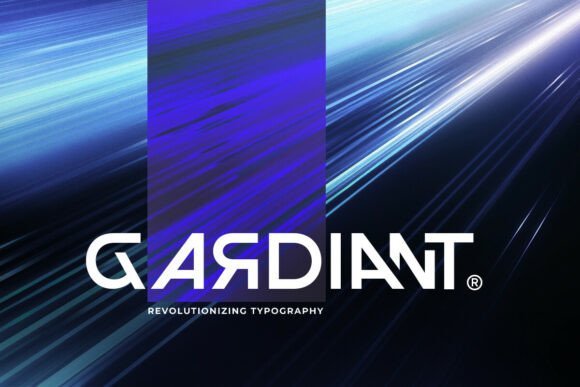
Unlocking the Future of Design: Introducing the Gardiant Font
As designers, we’ve all been there – stuck in a creative rut, searching for the perfect font to elevate our project to the next level. It’s a moment of inspiration that strikes when you least expect it, like stumbling upon a hidden gem in a design archive. And for those who crave something truly out of this world, the Gardiant Font is the answer.
This futuristic and modern logo font boasts a sleek sans serif design that’s perfect for sci-fi themed projects, tech startups, and sports teams looking to make a bold statement. With its stylish lowercase letters and support for multiple languages, the Gardiant Font offers endless possibilities for designers to unleash their creativity. Whether you’re creating a logo, game, or any other project, this versatile font is sure to make your design stand out from the crowd.
• Font Family: Gardiant Font is a modern sans-serif font family designed for clear readability and professional applications.
• Character Set: Includes over 1000 glyphs, supporting multiple languages, including Latin, Cyrillic, and Greek alphabets.
• Unique Characteristics: Gardiant Font features a unique balance of geometric and organic elements, providing a clean and sophisticated aesthetic.
Gardiant Font Review
Overall, I found Gardiant to be a solid addition to any designer’s toolkit. ✨ It’s versatile and works well in a variety of applications, from body text to headlines.
The font’s sans-serif design makes it easy to read, even at smaller font sizes. ✨ I also appreciate the subtle rounded edges, which give the font a friendly and approachable feel.
While Gardiant is a great font, it’s not without its limitations. ⚠️ One of the main drawbacks is the lack of italic and bold styles. This can make it difficult to create emphasis or add visual interest to text.
Another issue is the limited language support. ⚠️ While the font includes many common languages, it may not be suitable for projects that require extensive international support.
Final Thoughts
Gardiant is a great font for designers who want a clean, modern look. ✨ While it may not be the best choice for every project, it’s definitely worth considering for applications where a sans-serif font is desired.
• Sans-serif design
• Rounded edges for a friendly feel
• Easy to read at smaller font sizes
• Limited language support
• No italic and bold styles
Tips for Getting the Most Out of Gardiant Font
To get the most out of Gardiant Font, use it for:
• Titles and headings: Gardiant Font is perfect for creating eye-catching titles and headings.
• Quotes and phrases: Use Gardiant Font to add a touch of elegance to quotes and phrases.
• Branding: Gardiant Font can be used for branding and creating a consistent visual identity.
Gardiant Font is commonly used in:
• Wedding invitations and stationery.
• Business cards and marketing materials.
• Blog posts and articles.Alternatives to Gardiant Font
Inter is a highly legible sans-serif font designed for digital interfaces. It is ideal for use in body text and is particularly effective for long-form content. Inter is a more geometric font compared to Gardiant, which has a more rounded and humanist feel. Use Inter when you need a clean and modern aesthetic.
Montserrat is a sans-serif font inspired by urban typography. It is highly versatile and works well for both digital and print applications. Montserrat has a more angular and geometric feel compared to Gardiant, which makes it ideal for use in headings and titles. Use Montserrat when you need a bold and modern look.
Avenir Font
Avenir is a geometric sans-serif font designed for use in print and digital media. It is highly legible and works well for both body text and headings. Avenir has a more futuristic feel compared to Gardiant, which makes it ideal for use in futuristic or technological-themed designs. Use Avenir when you need a sleek and modern aesthetic.